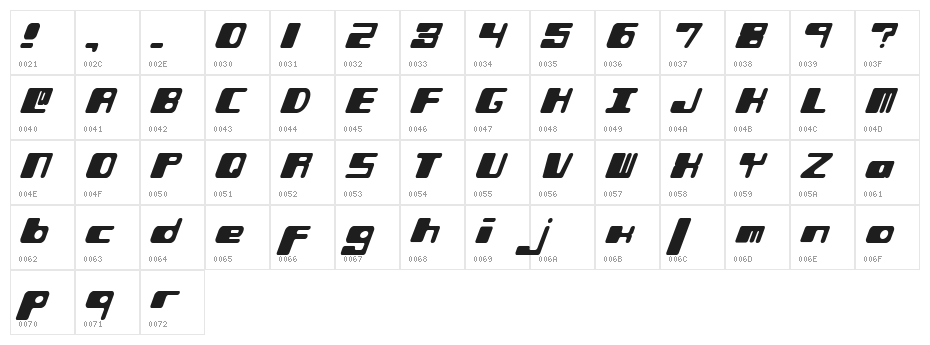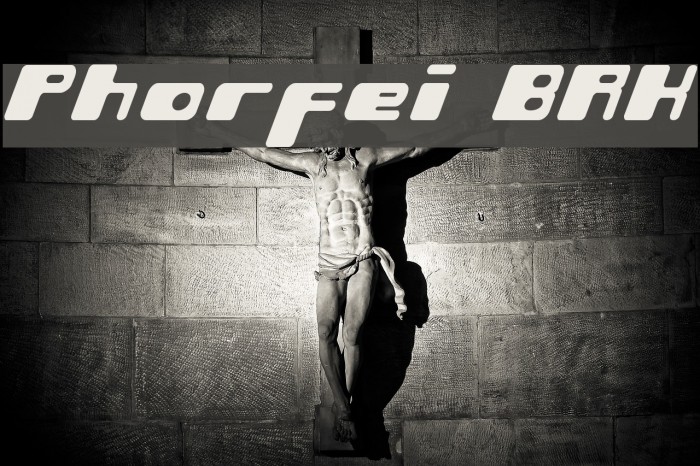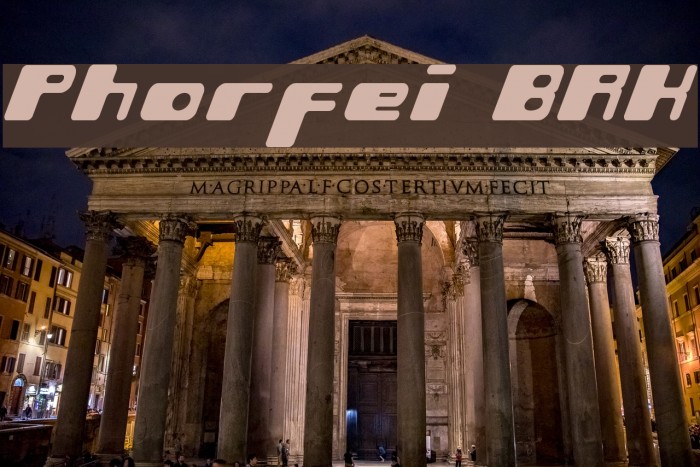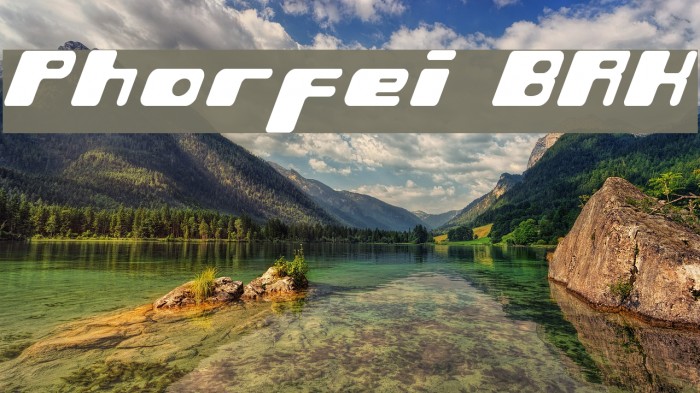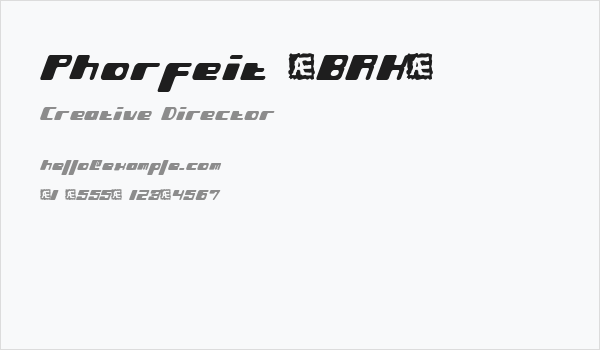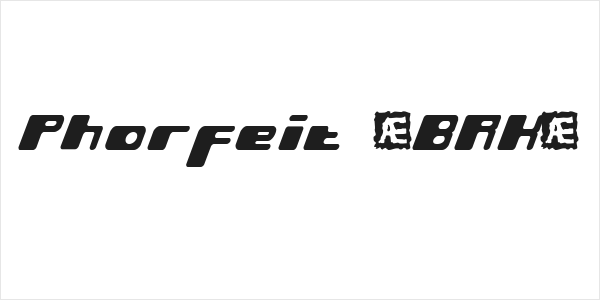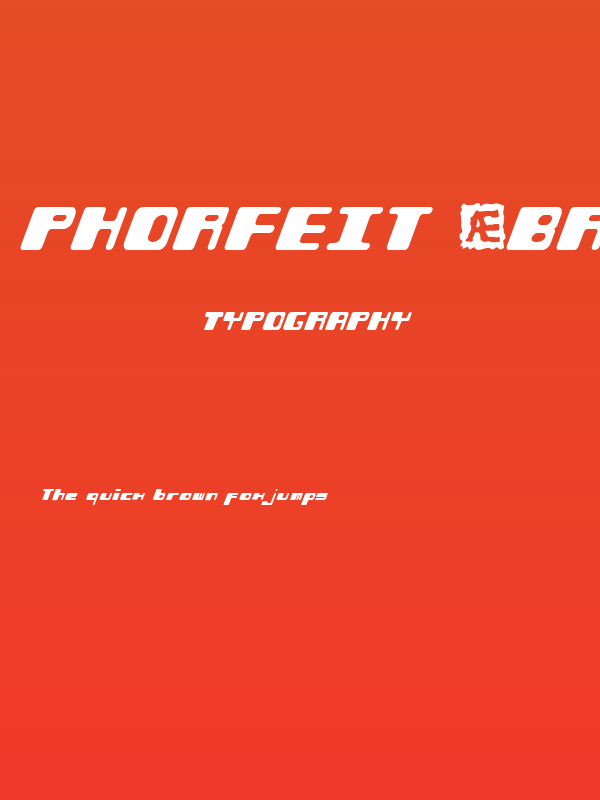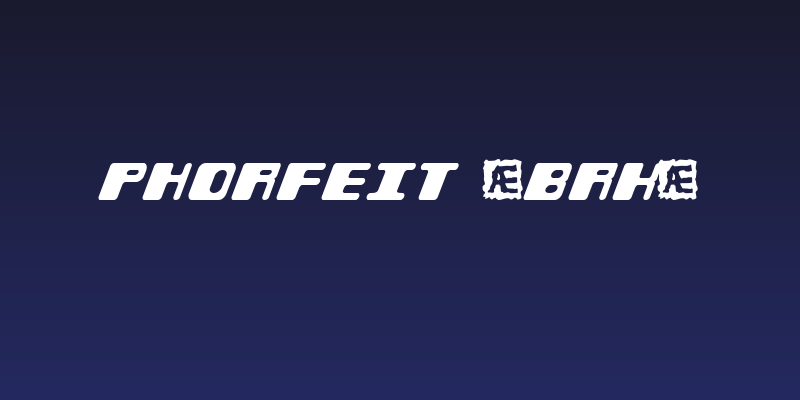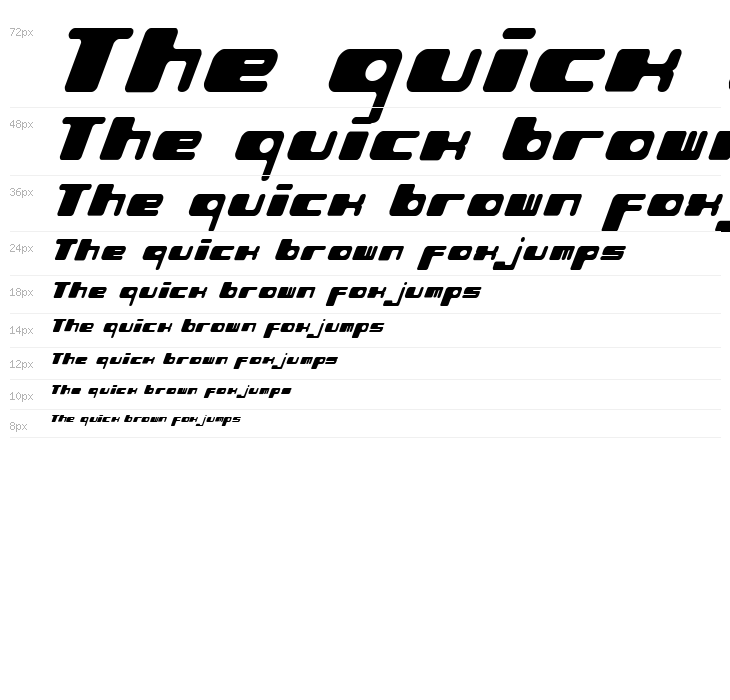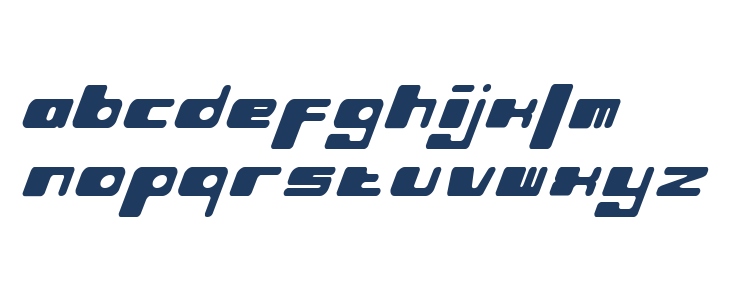
Phorfeit [BRK] Font
Phorfeit [BRK] Description
This font features a bold and dynamic style with a futuristic and sporty aesthetic. The characters are slightly italicized, giving a sense of motion and speed. The uppercase letters are blocky with rounded edges, while the lowercase letters maintain a consistent style, offering a cohesive look. The numbers are bold and easily readable, matching the overall design. Special characters are included, maintaining the same bold and dynamic style. The font is suitable for projects that require a modern and energetic feel.